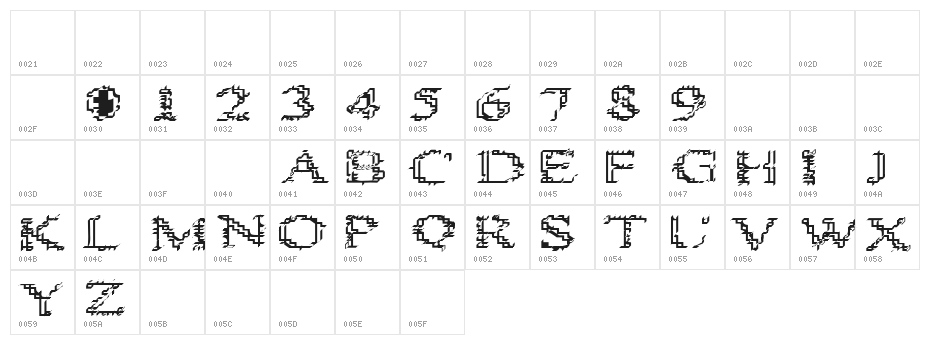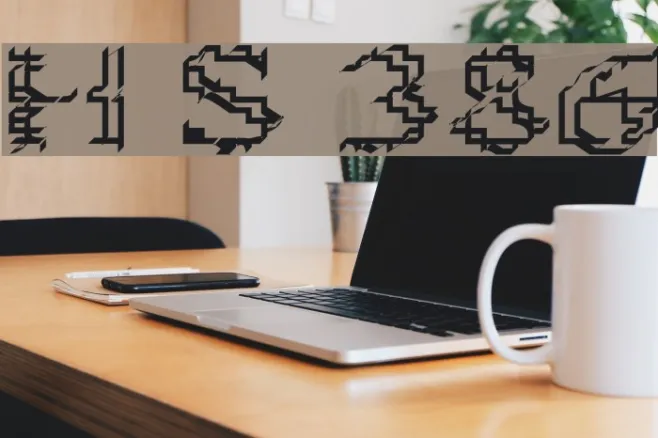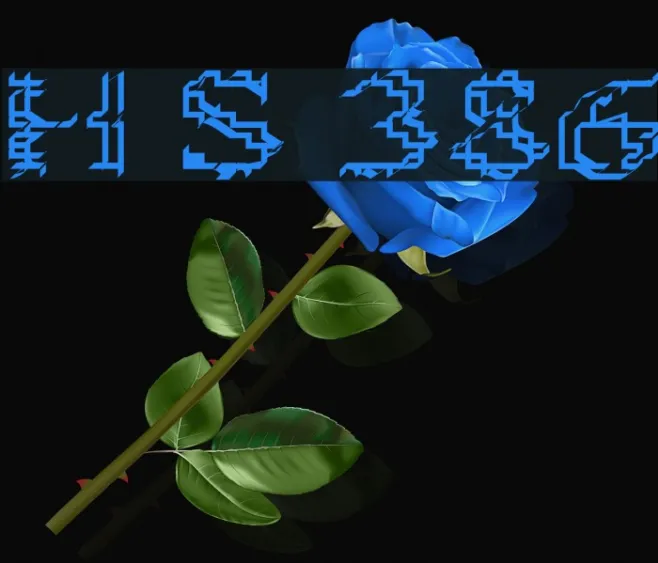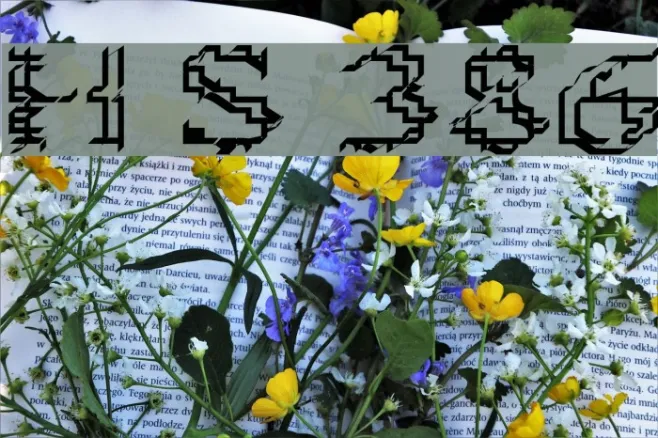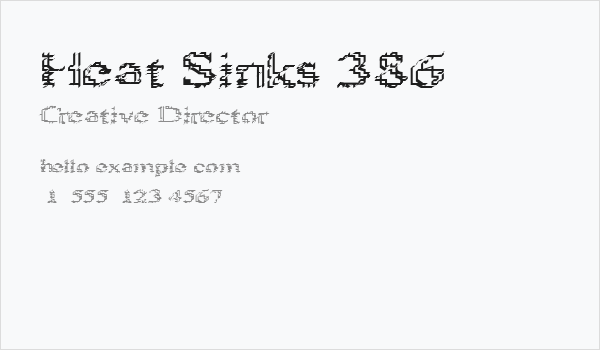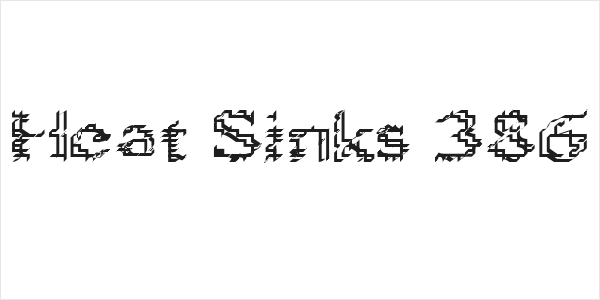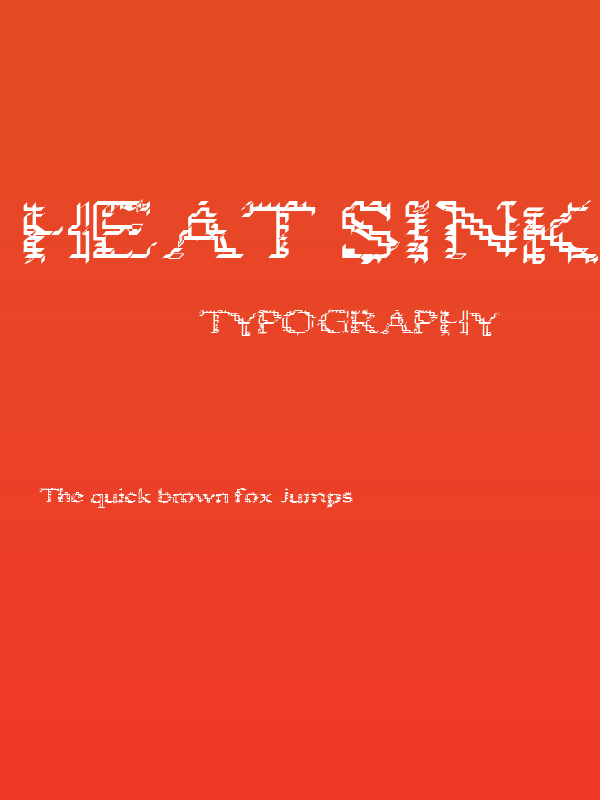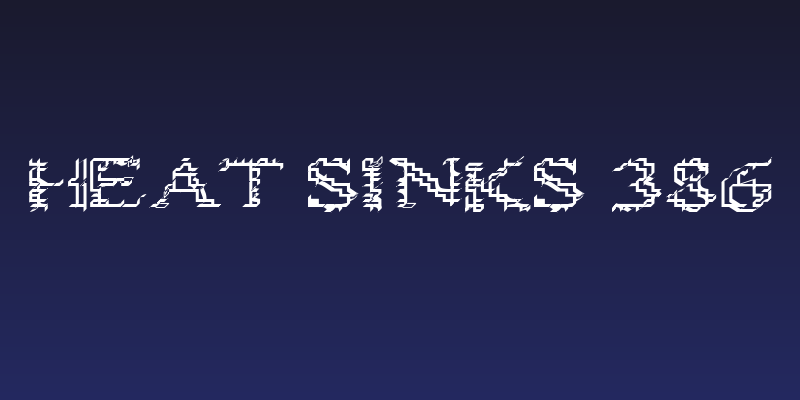
Heat Sinks 386 Font
Heat Sinks 386 Description
This font features a unique, jagged design that resembles the intricate patterns of heat sinks, giving it a technological and industrial feel. The characters are composed of sharp, angular lines with a fragmented appearance, creating a sense of movement and energy. The uppercase and lowercase letters maintain a consistent style, with each character displaying a distinct, edgy outline. The numerals and special characters follow the same design principles, ensuring uniformity across the font. This font is visually striking and stands out due to its unconventional and bold aesthetic.
| Overall Style | Modern, Industrial |
| Proposed Projects | Ideal for technology-themed projects, sci-fi posters, video game graphics, and edgy branding materials. |